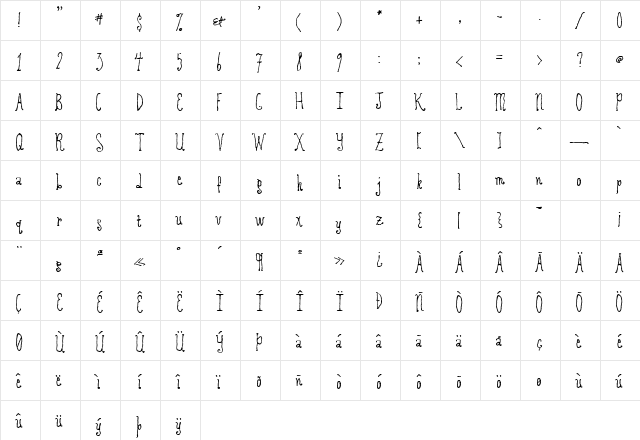
RevolvingDoor Regular
Design Context for RevolvingDoor Typeface
RevolvingDoor is a composed and adaptable typeface that performs quietly and consistently across a wide range of design contexts.